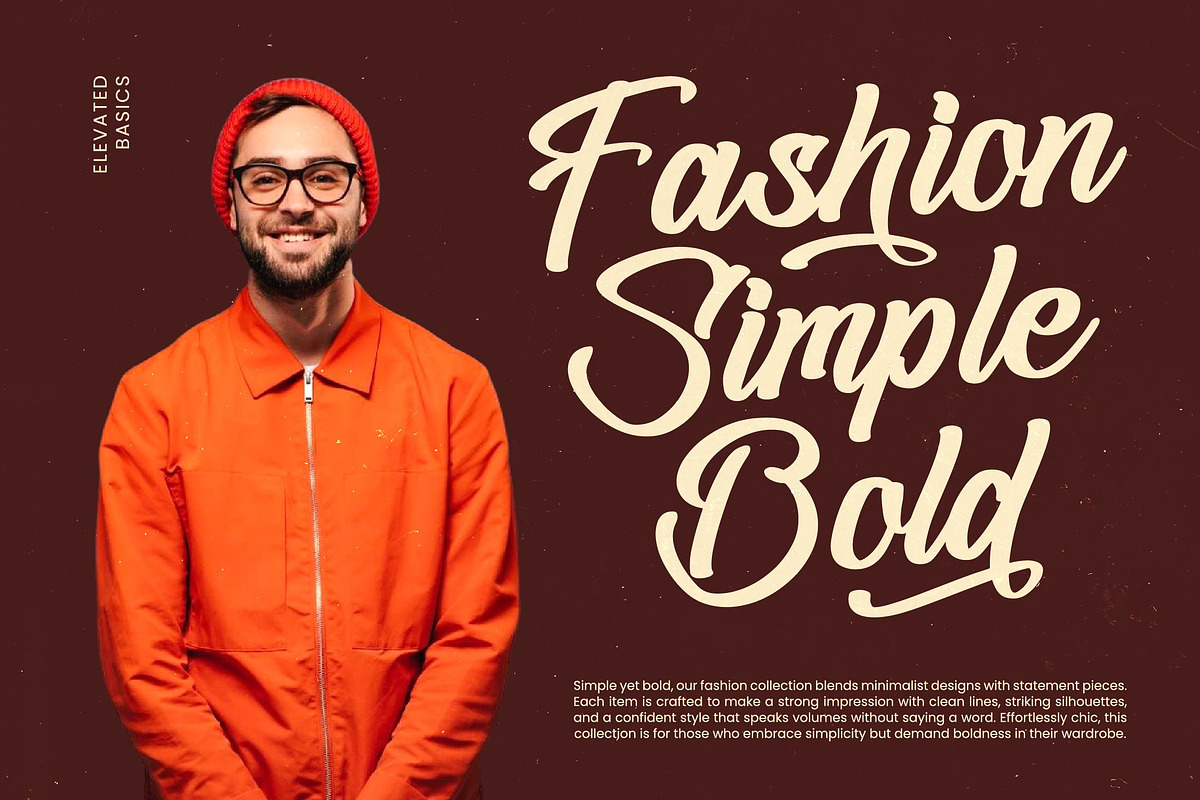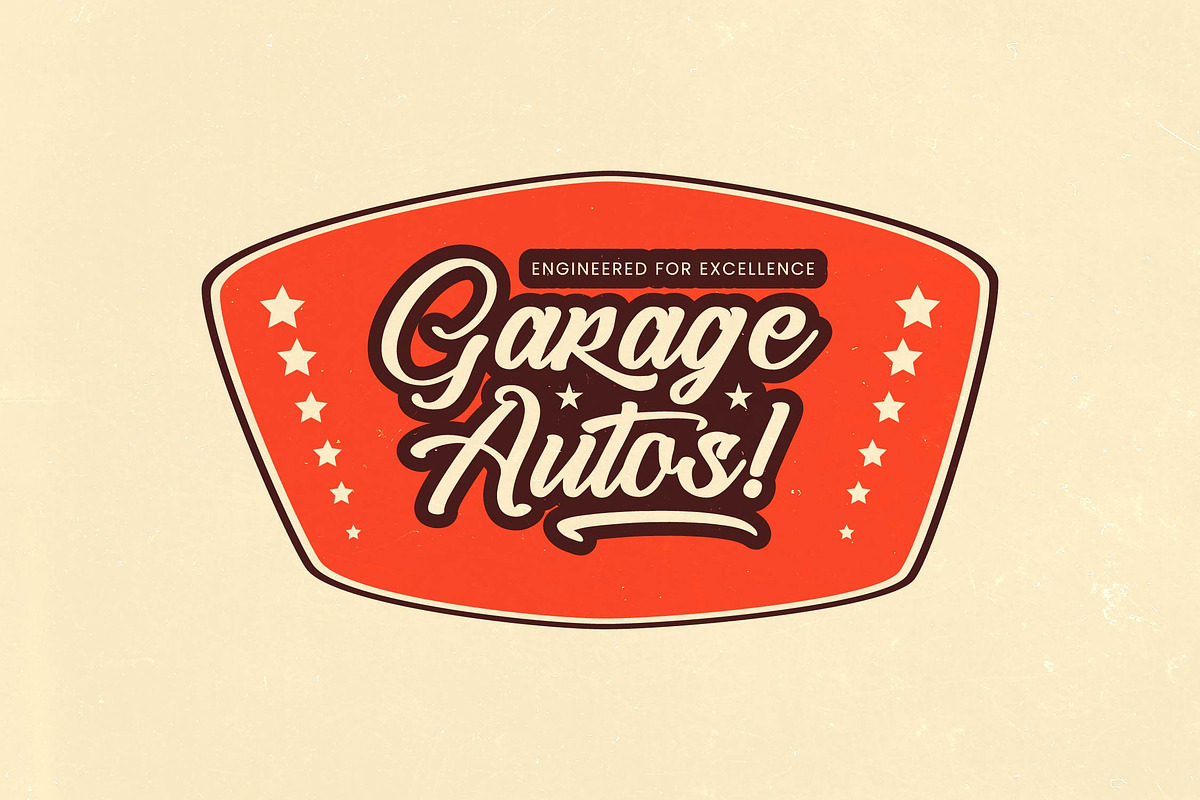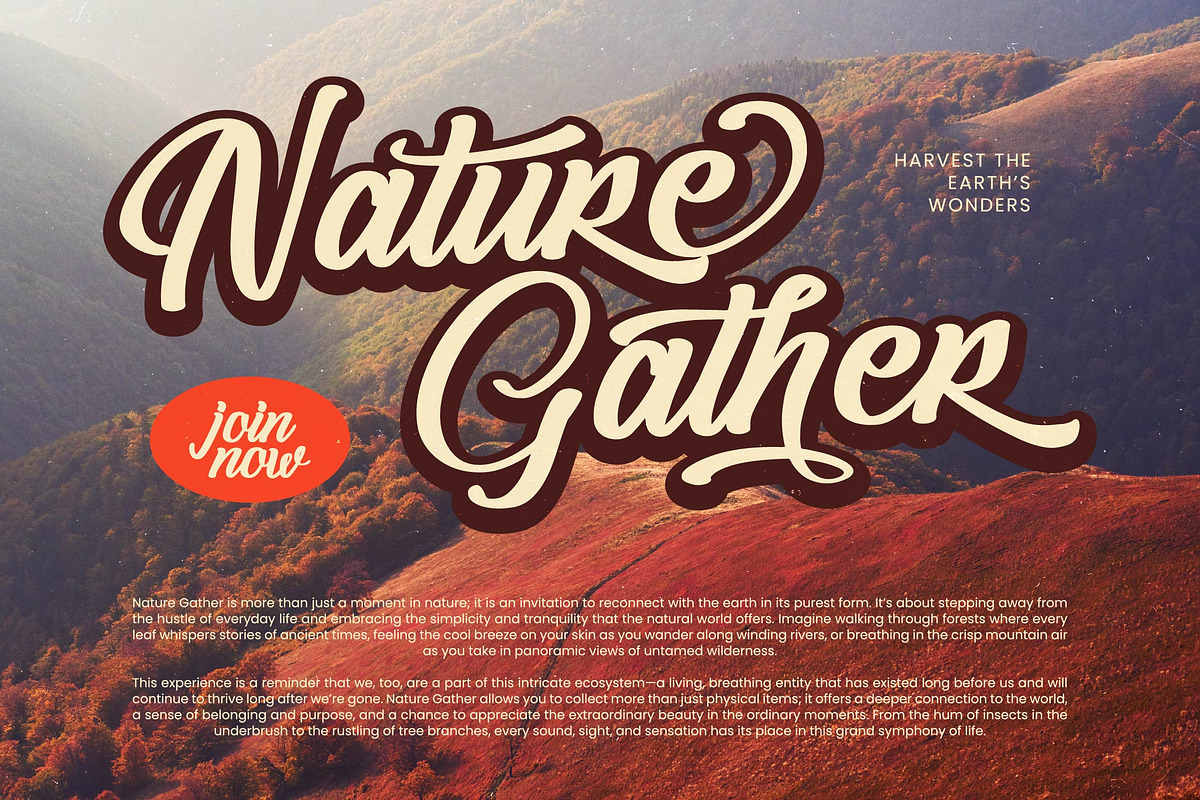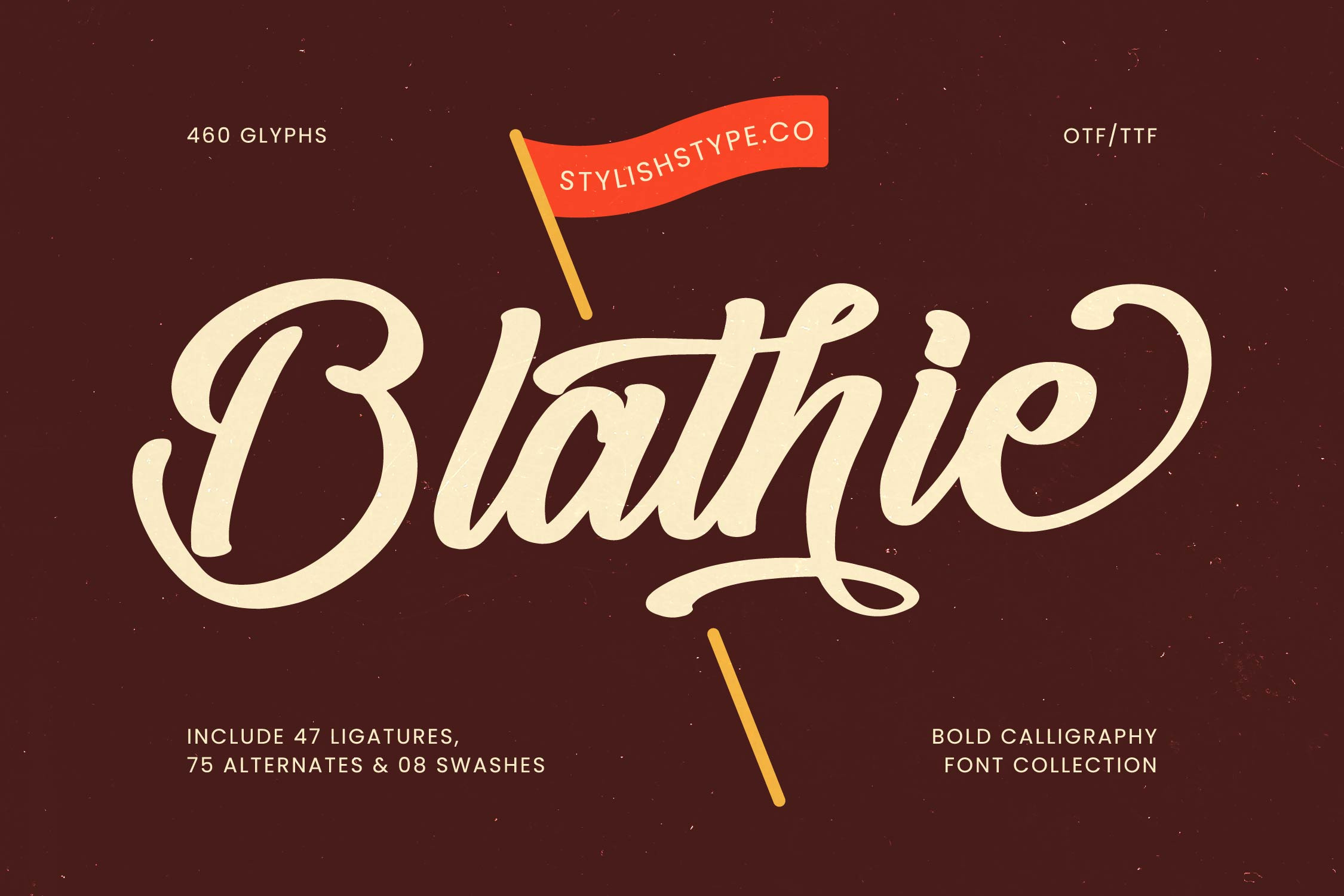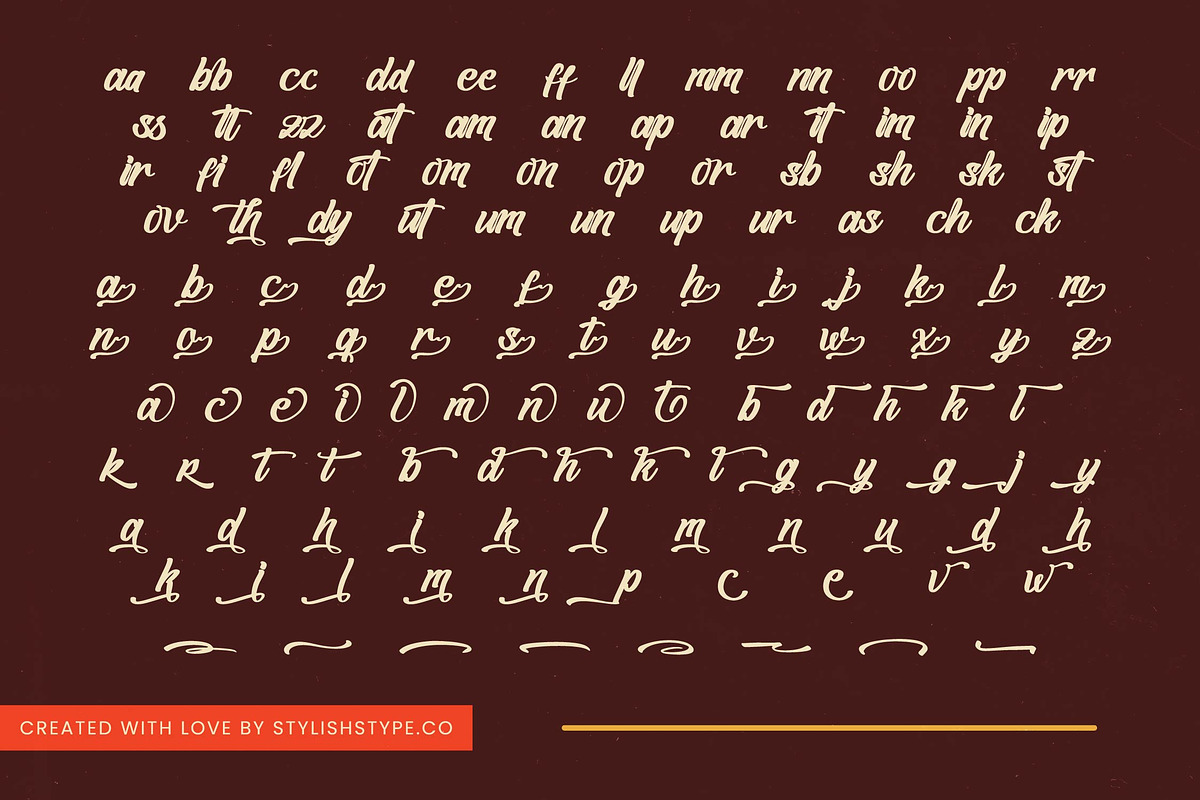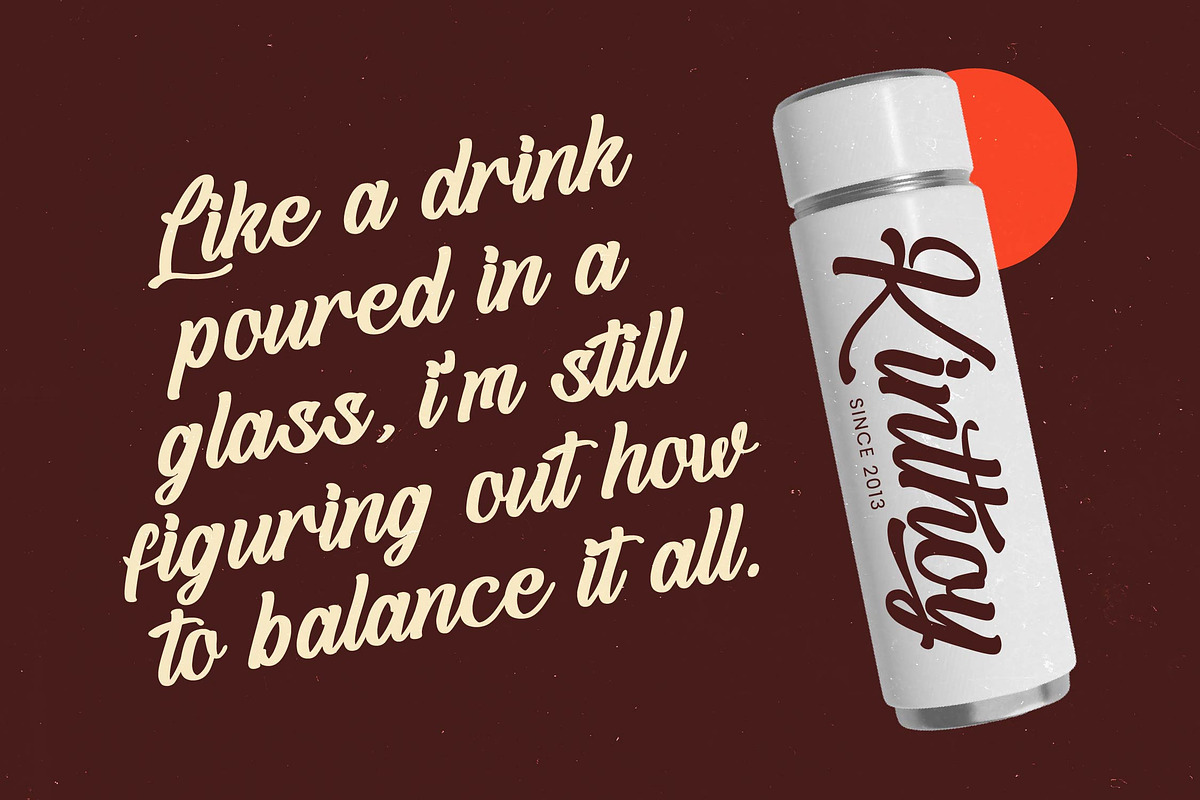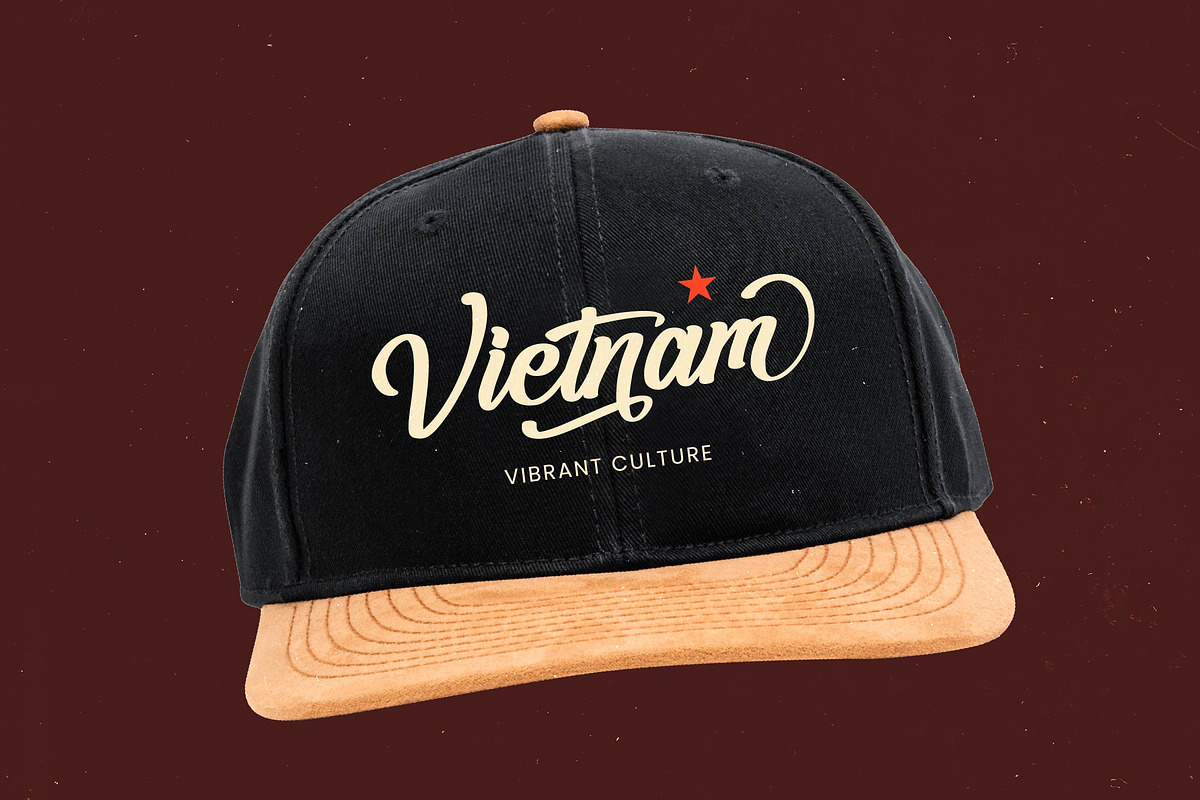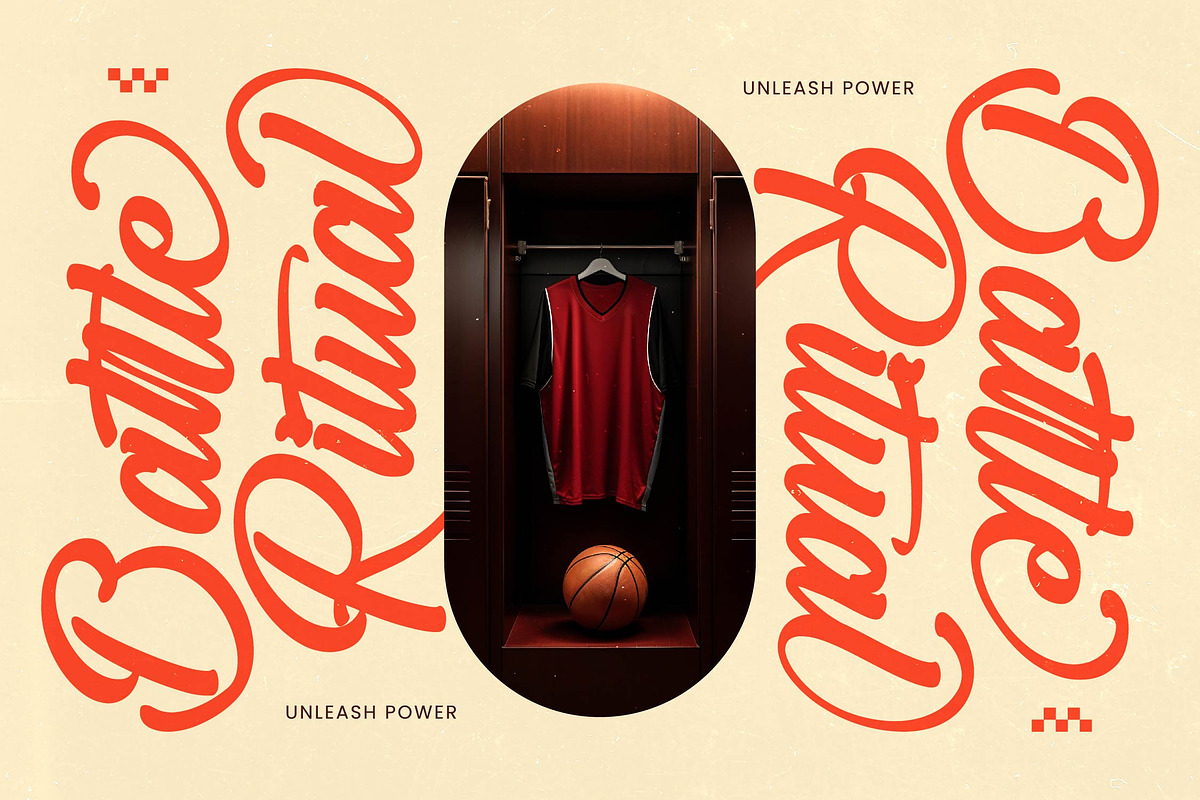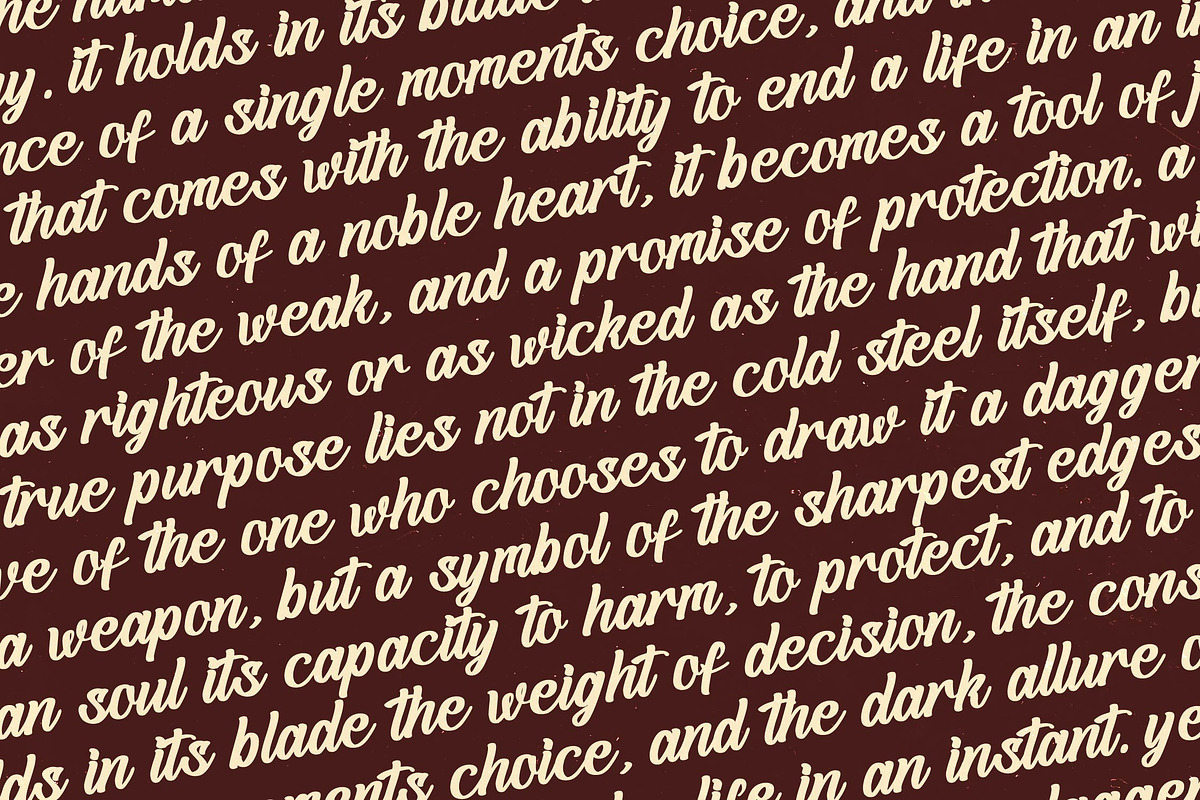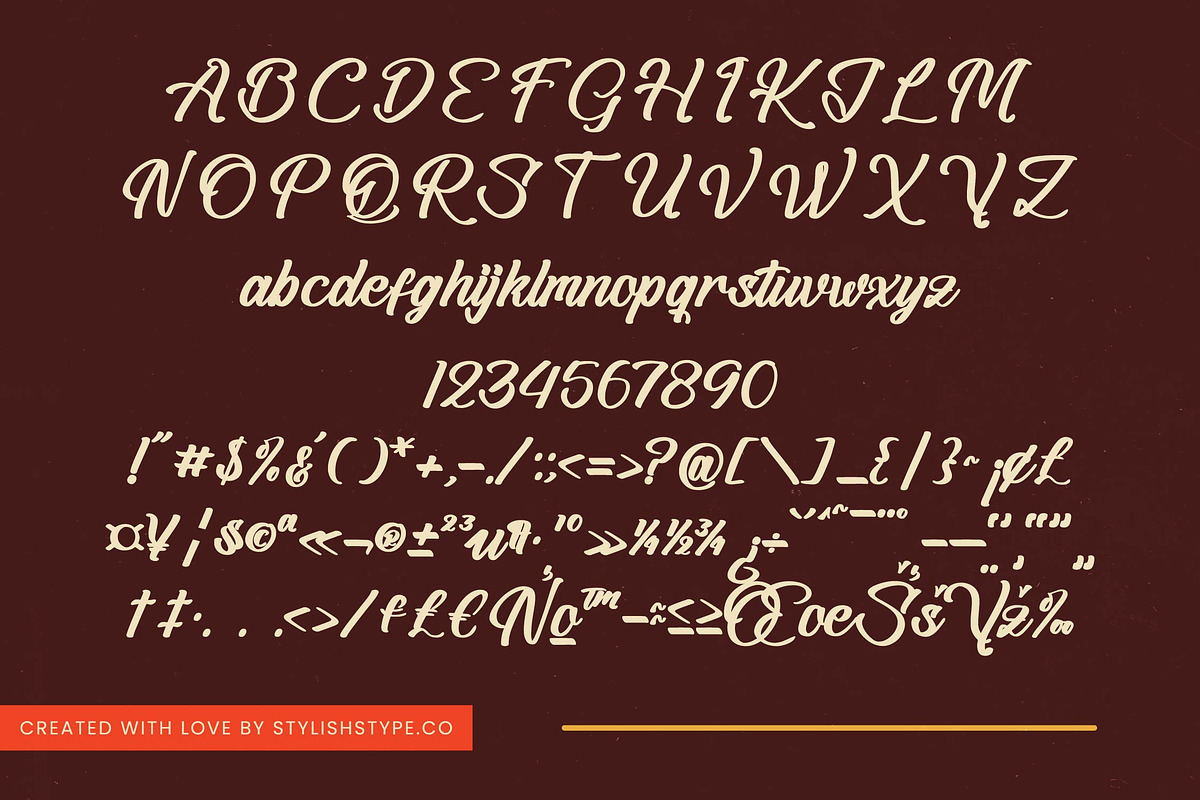
Blathie Bold Calligraphy Font
Blathie - Bold Calligraphy Font , from Stylishtype.Co , Suitable for any projects such as: logos, branding projects, homeware designs, product packaging, mugs, quotes, posters, shopping bags, t-shirts, book covers, name card, invitation cards, greeting cards, label, photography, watermark, special events, and all your other luxury and beautiful projects that need a Luxury Script taste.
- 47 Ligature 75 Alternates & 08 Swashes